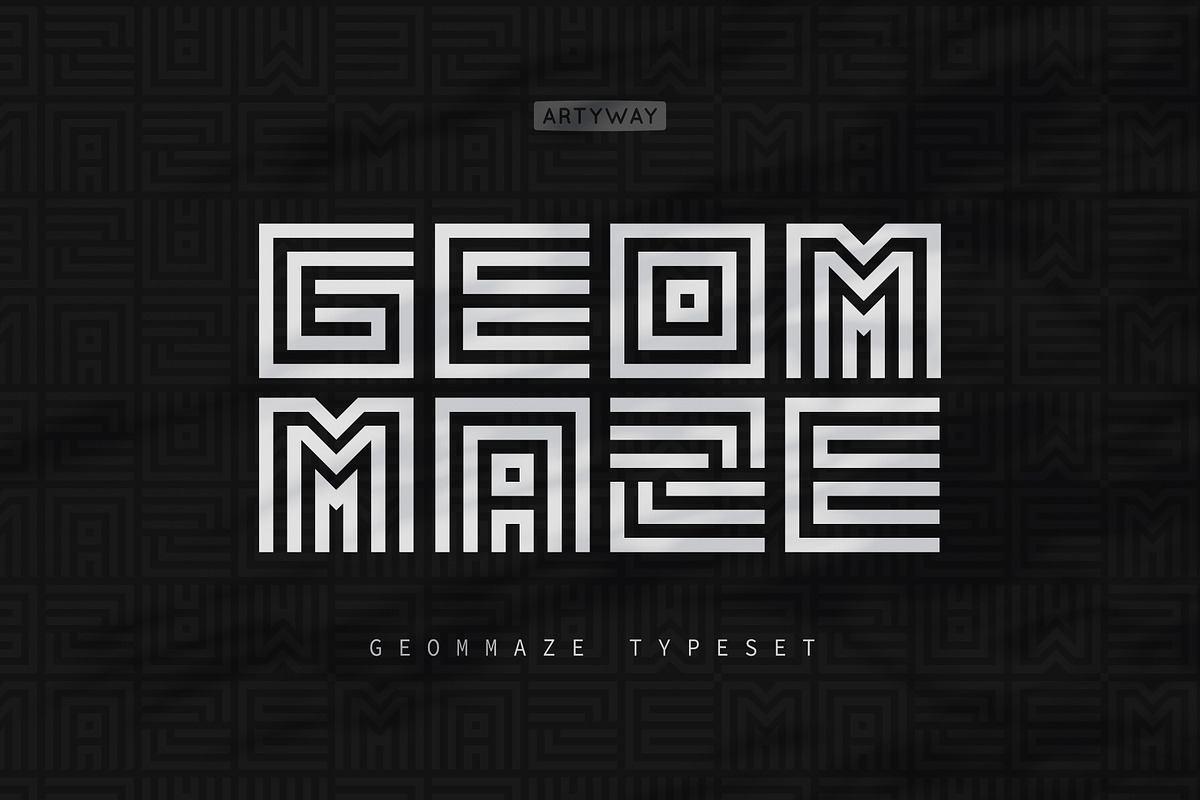
Maze Logo Font Free Download
Bold, sleek, and ideal for standout branding, Maze Logo Font Free Download is a modern display typeface designed to create striking logos, headlines, and custom typography. Perfect for tech companies, gaming brands, and creative agencies, this font offers clean lines and geometric shapes that make a strong, memorable impression.
With its sharp angles and contemporary aesthetic, Maze is the perfect choice for projects that need to convey innovation, precision, and a cutting-edge feel. Whether you're designing a logo, creating a brand identity, or crafting a promotional piece, this font adds a touch of modern sophistication.